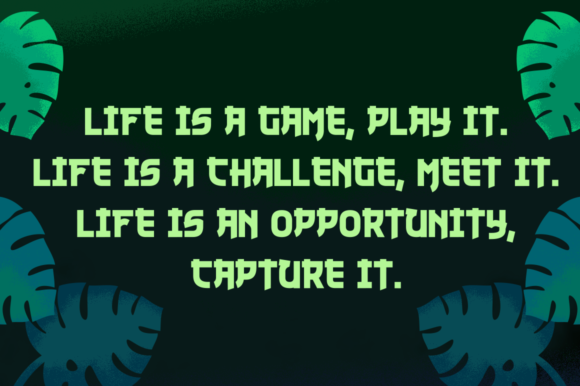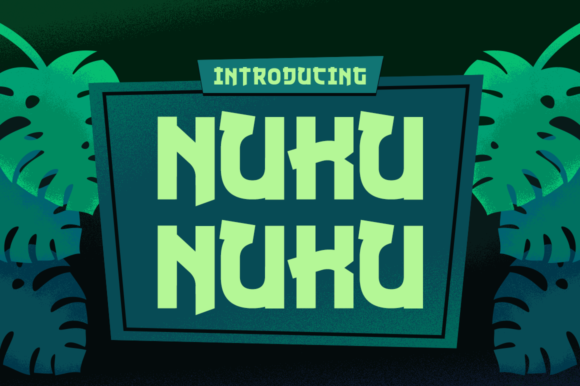
Nuku Nuku
About Nuku Nuku Font
Nuku Nuku is a fun, thematic display font that can add a ton of intrigue and interest to your designs! This font looks best in large formats, and is available for free.